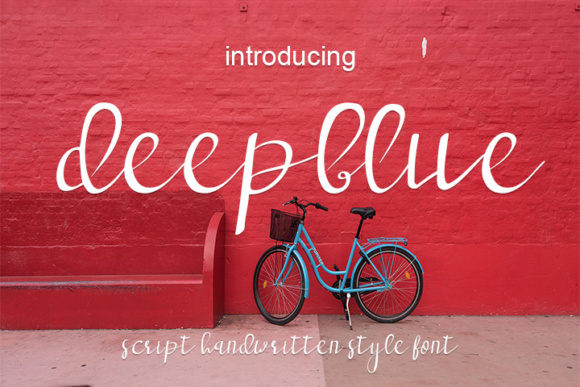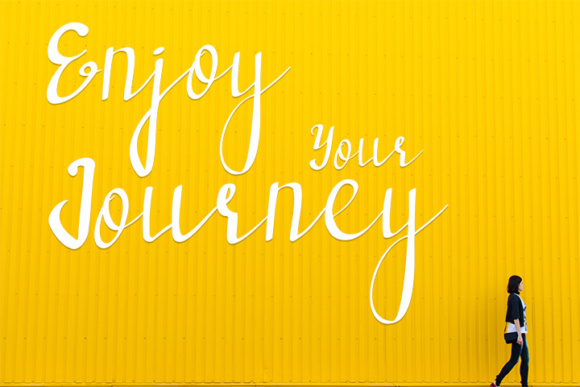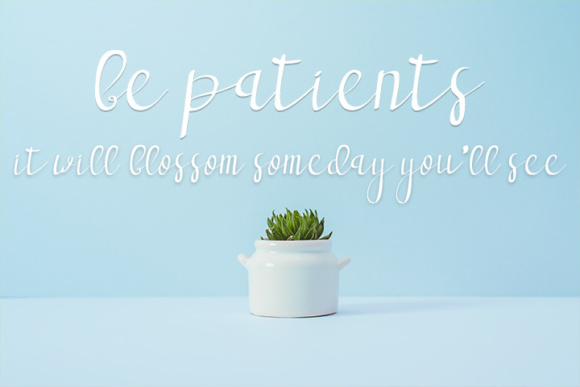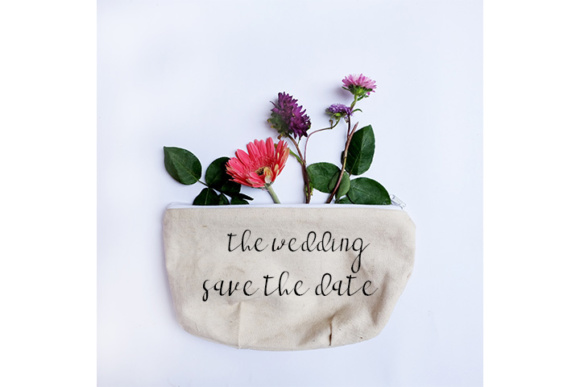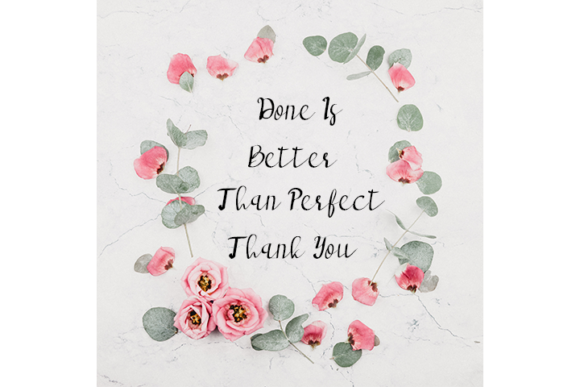
Deepblue Font
About Deepblue Font
The Deepblue is a handwritten font that will help you create a unique design. you can use it to create beautiful and unique wedding invitations, flyers, quotes, and much more!